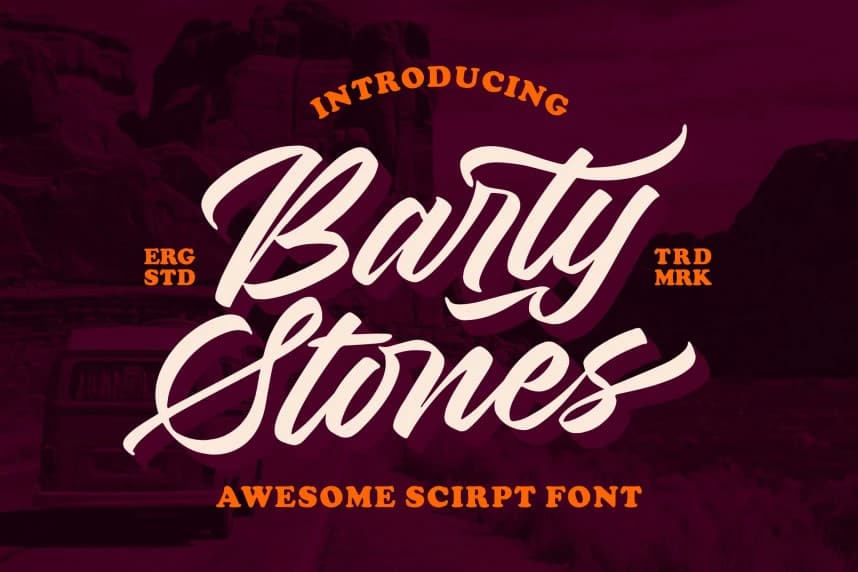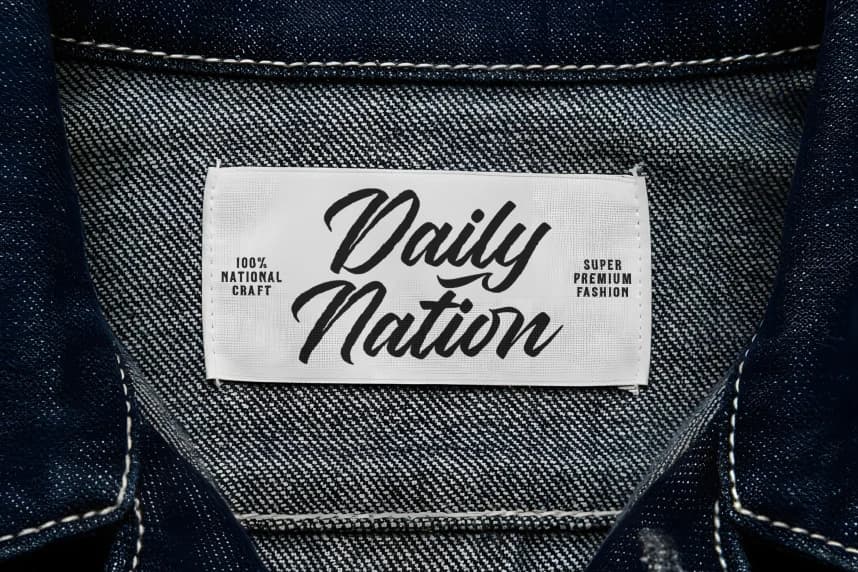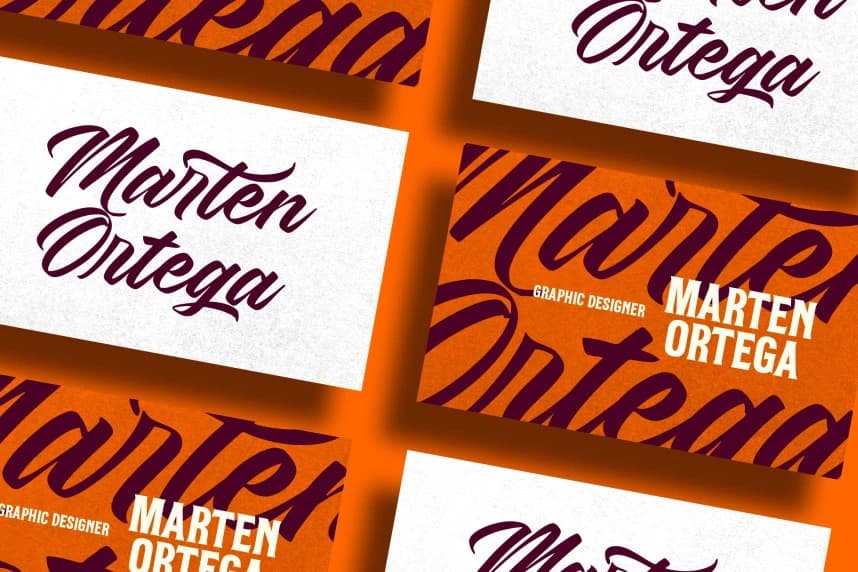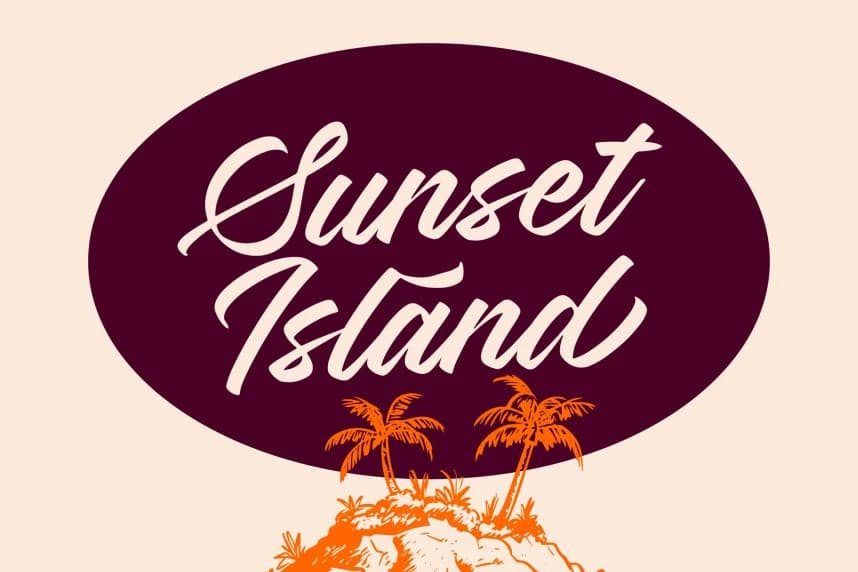
Barty Stones Font
Barty Stones Font is a bold and expressive script font inspired by vintage road trips and retro signage. With its smooth curves, dynamic strokes, and confident letterforms, it delivers a strong visual presence that instantly grabs attention.